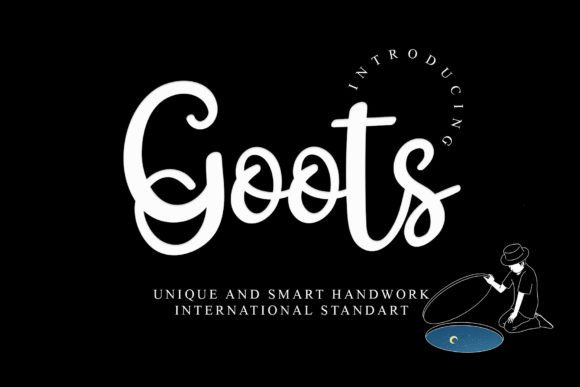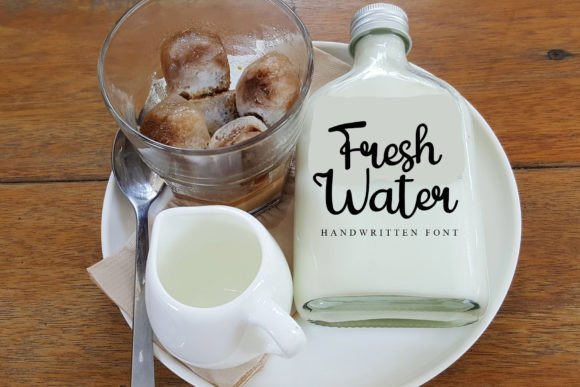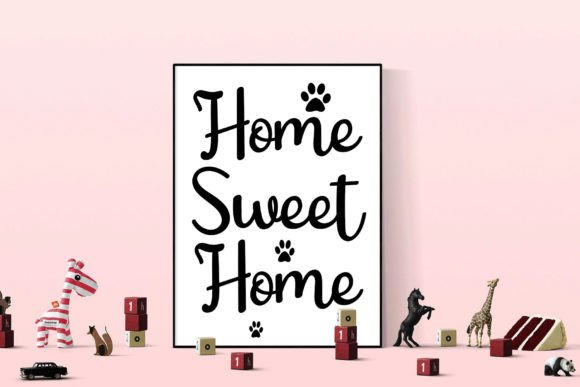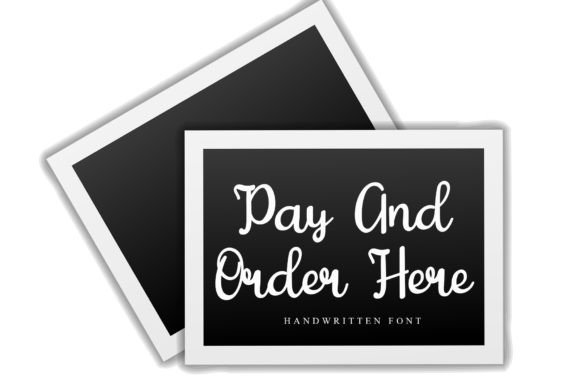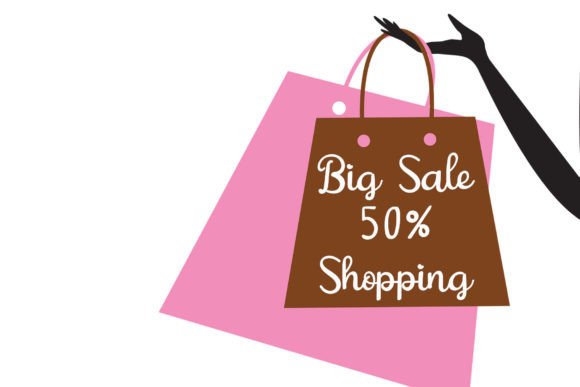
Goots Font
What Is Goots Font?
Goots is a unique and elegant handwritten font designed to bring a natural, handmade feel to any project. With its smooth lines, varied baseline, and organic flow, Goots combines sophistication with authenticity. This blend makes your designs look polished yet warm, elevating even the simplest text into something memorable.
Each letter has been crafted to create a refined, graceful style that stands out across all applications.
Goots is perfect for a wide range of design projects. On wedding invitations, it creates a romantic and personal touch that feels both timeless and stylish. Greeting cards gain extra charm with its natural handwritten look.
This font is also a great choice for branding. Whether you’re designing logos, business cards, or packaging, Goots adds a handcrafted elegance that makes your brand feel approachable and premium at the same time.
For billboards, banners, and posters, Goots stays legible and visually appealing even at larger sizes, ensuring your message has impact. On social media graphics, it gives your posts a fresh, friendly style that captures attention.
Why Choose Goots Font?
Goots offers a perfect balance between creative expression and professional clarity. Its varied baseline and smooth curves bring movement and warmth to your text without sacrificing readability.
Goots instantly elevates your projects with its elegant, handcrafted look. It makes wedding invitations feel more special, adds a personal flair to business materials, and brings a refined charm to social media posts and website headers.
By choosing a high-quality handwritten font like Goots, you show your audience that you care about detail and style—two qualities that build trust and engagement.
Goots is more than a font—it’s a way to make your ideas feel authentic and beautiful. From heartfelt invitations to polished branding, this typeface delivers warmth, sophistication, and creativity in every letter.